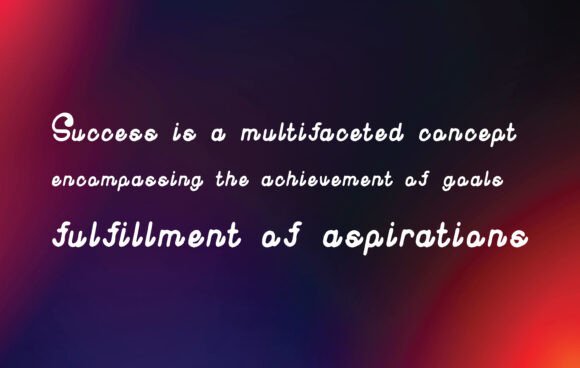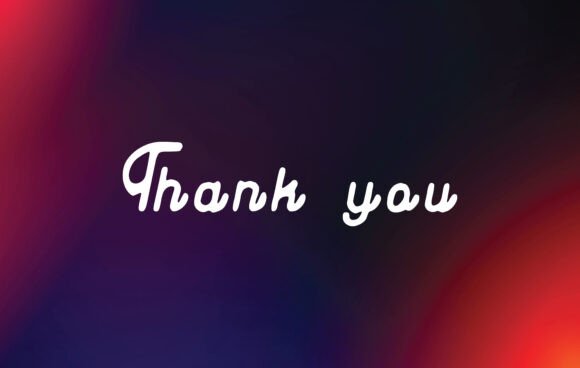
Introduction to Lockley Font
Have you ever stared at a blank page, trying to conjure up the perfect design to bring your creative idea to life? For designers, this moment is all too familiar. It’s the moment when inspiration strikes, and the right font can make all the difference. That’s where the Lockley Font comes in – a high-quality, versatile font that’s sure to become a favorite among designers.
With its legibility and aesthetic appeal, the Lockley Font is perfect for a wide range of creative projects, from magazine headlines to social media graphics, branding, and even wedding invitations. Whether you’re working on a design resource for a client or a personal project, this font is sure to elevate your work and make it stand out from the crowd.
Key Features of Lockley Font
- Unique characteristics include a mix of modern and vintage elements, making it perfect for a wide range of design projects.
- Perfect for use in logos, branding, and other creative projects where a distinctive font is required.
Honest Review: Lockley Font
As a designer, I’m always on the lookout for high-quality design resources to elevate my creative projects. The Lockley Font has been a great addition to my toolkit, and I’m excited to share my thoughts on it.
Here are some things that work well with the Lockley Font:
- ✨ Elegant and sophisticated design aesthetic: The Lockley Font has a unique, hand-drawn feel that adds a touch of sophistication to any design.
- ✨ Wide range of glyphs: The font includes a comprehensive set of glyphs, making it suitable for a variety of creative projects.
- ⚠️ Limited font sizes: While the font looks great at larger sizes, it can become distorted at smaller font sizes.
- ⚠️ No transparent background option: If you need to use the font with a transparent background, you may need to look elsewhere.
Overall, I’m impressed with the Lockley Font’s design and versatility. While it has some limitations, it’s a great choice for designers looking for a high-quality, free download font for their creative projects.
Tips for Getting the Most Out of Lockley Font
To get the most out of Lockley Font, experiment with different font sizes, colors, and combinations with other design elements. The transparent background of Lockley Font makes it versatile and easy to use in a variety of design projects.
Common Use Cases for Lockley Font
Lockley Font is perfect for use in creative projects such as logos, business cards, and brochures. Its high-quality design and transparent background make it ideal for use in digital and print designs.
The Lockley Font features a transparent background, allowing you to easily integrate it with other design elements and backgrounds. This feature is particularly useful for creating visually striking graphics, logos, and other design elements that require a seamless integration with other design elements.